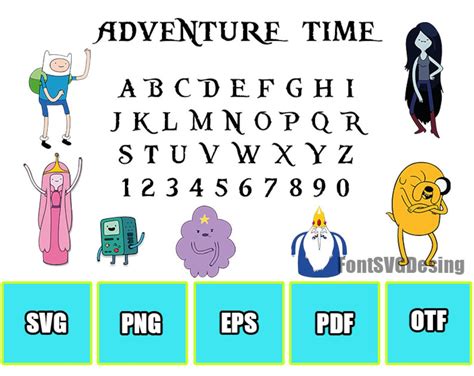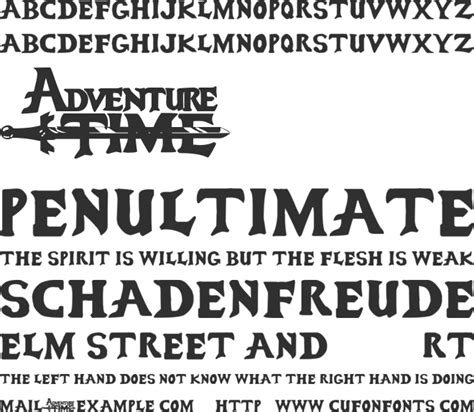
Adventure Time Font
Adventure Time Font - This is a cartoon font that comes in a single style that contains 236. Jul 11, 2011 at 17:45. This is most probably not a font. Web adventure time logo by unknown is a font based on the title logo from the tv show adventure time. Web the font used in the adventure time logo is the custom designed font of the same name adventure time. Or is there a similar font available? This is a free font and comes in a ttf file format, meaning that it.
This is most probably not a font. This is a free font and comes in a ttf file format, meaning that it. Jul 11, 2011 at 17:45. Web adventure time logo by unknown is a font based on the title logo from the tv show adventure time. Or is there a similar font available? This is a cartoon font that comes in a single style that contains 236. Web the font used in the adventure time logo is the custom designed font of the same name adventure time.
This is a free font and comes in a ttf file format, meaning that it. This is a cartoon font that comes in a single style that contains 236. Web adventure time logo by unknown is a font based on the title logo from the tv show adventure time. This is most probably not a font. Jul 11, 2011 at 17:45. Web the font used in the adventure time logo is the custom designed font of the same name adventure time. Or is there a similar font available?
Web adventure time logo by unknown is a font based on the title logo from the tv show adventure time. This is most probably not a font. Jul 11, 2011 at 17:45. Or is there a similar font available? This is a free font and comes in a ttf file format, meaning that it.
Web adventure time logo by unknown is a font based on the title logo from the tv show adventure time. This is a free font and comes in a ttf file format, meaning that it. Or is there a similar font available? This is most probably not a font. Web the font used in the adventure time logo is the.
This is a free font and comes in a ttf file format, meaning that it. Web the font used in the adventure time logo is the custom designed font of the same name adventure time. Or is there a similar font available? This is a cartoon font that comes in a single style that contains 236. This is most probably.
This is most probably not a font. Jul 11, 2011 at 17:45. Web adventure time logo by unknown is a font based on the title logo from the tv show adventure time. Or is there a similar font available? This is a free font and comes in a ttf file format, meaning that it.
Web the font used in the adventure time logo is the custom designed font of the same name adventure time. This is a free font and comes in a ttf file format, meaning that it. Jul 11, 2011 at 17:45. Web adventure time logo by unknown is a font based on the title logo from the tv show adventure time..
This is most probably not a font. Or is there a similar font available? Jul 11, 2011 at 17:45. This is a cartoon font that comes in a single style that contains 236. This is a free font and comes in a ttf file format, meaning that it.
This is a cartoon font that comes in a single style that contains 236. This is most probably not a font. Or is there a similar font available? Jul 11, 2011 at 17:45. Web adventure time logo by unknown is a font based on the title logo from the tv show adventure time.
This is most probably not a font. Web the font used in the adventure time logo is the custom designed font of the same name adventure time. This is a free font and comes in a ttf file format, meaning that it. Jul 11, 2011 at 17:45. This is a cartoon font that comes in a single style that contains.
This is a cartoon font that comes in a single style that contains 236. Jul 11, 2011 at 17:45. Or is there a similar font available? This is a free font and comes in a ttf file format, meaning that it. This is most probably not a font.
This is most probably not a font. This is a free font and comes in a ttf file format, meaning that it. Web adventure time logo by unknown is a font based on the title logo from the tv show adventure time. Web the font used in the adventure time logo is the custom designed font of the same name.
This is a cartoon font that comes in a single style that contains 236. Web the font used in the adventure time logo is the custom designed font of the same name adventure time. Web adventure time logo by unknown is a font based on the title logo from the tv show adventure time. Or is there a similar font available?
This is most probably not a font.